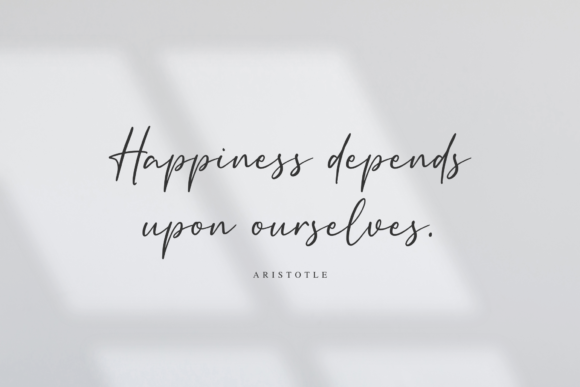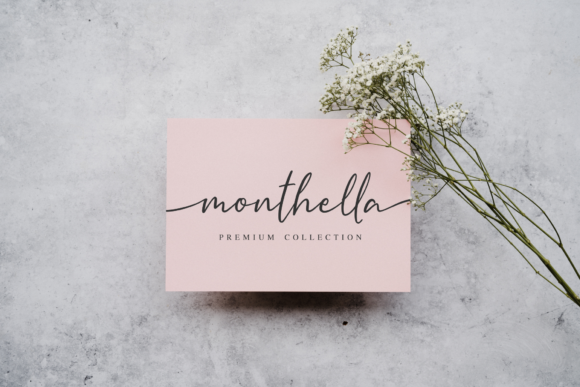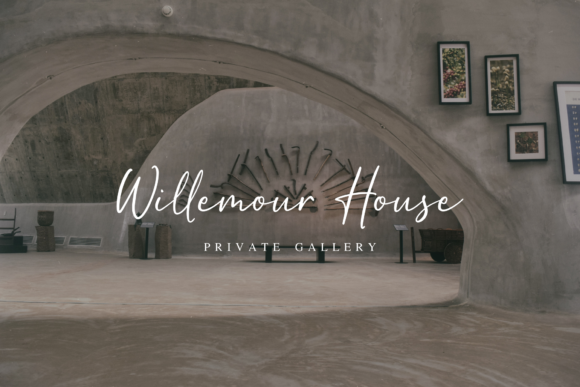
Introduction to Kallinsha Font Font
Fonts play a crucial role in design, and the Kallinsha Font font is a typeface that brings both character and versatility to any project. Whether you’re working on a branding project, a website, or a print design, the Kallinsha Font font offers a unique style that can elevate your work.
| 📌 Font Name | Kallinsha Font |
| 👤 Author | Sibelumpagi Studio |
Kallinsha simplifies elegance into one truly outstanding handwritten font.
Fall in love with its authentic feel and use it to create gorgeous wedding invitations, beautiful stationary art, eye-catching social media posts, and cute greeting cards .
Key Features of Kallinsha Font Font
Why Choose Kallinsha Font Font?
The Kallinsha Font font is more than just a typeface – it’s a design tool that helps you communicate your message with style and clarity. Its unique character set and versatile design make it suitable for a wide range of applications, from elegant invitations to bold headlines.
With its carefully crafted letterforms and balanced proportions, the Kallinsha Font font ensures readability and visual appeal across all mediums.
What makes Kallinsha Font font special?
The Kallinsha Font font stands out with its unique design, exceptional readability, and versatility across various design applications.